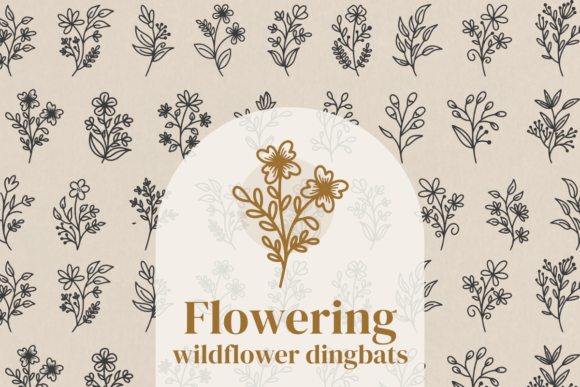
Introducing Flowering Font, the ultimate botanical wildflower dingbats font that will ignite your creativity and take your projects to new heights! Created by the talented design studio, Letterayu, this font is a true masterpiece that will captivate your senses and leave a lasting impression.
With its intricate floral designs, Flowering Font adds a touch of elegance and sophistication to any creative endeavor. Whether you're crafting social media posts, designing eye-catching book covers, sending out invitations, or creating stunning business cards, Flowering Font is the perfect choice to make your projects stand out from the crowd.
Unleash your imagination and let Flowering Font breathe life into your ideas. Its versatile nature allows it to seamlessly blend with various styles and themes, ensuring that your designs are always on point. From vintage-inspired prints to modern and minimalistic aesthetics, this font effortlessly adapts to your vision, making it a must-have for any designer or artist.
But Flowering Font doesn't stop at digital creations. With its high-quality printing capabilities, you can bring this captivating font to life on mugs, personalized gifts, DIY projects, and so much more! Imagine the joy of sipping your morning coffee from a mug adorned with flourishing botanical elements or surprising your loved ones with beautifully crafted cards that reflect their unique personalities.
What sets Flowering Font apart is its ability to evoke emotions and tell a story through art. Each whimsical character is meticulously crafted to convey a sense of wonder and beauty, inspiring your audience and leaving a lasting impression. Let the magic of Flowering Font transform your projects into extraordinary works of art.
Unlock your creativity and experience the power of Flowering Font today. Embrace the beauty of nature in every stroke, and watch as your designs blossom into something truly remarkable. Whether you're a professional designer or an aspiring artist, Flowering Font will be your trusted companion on this creative journey.